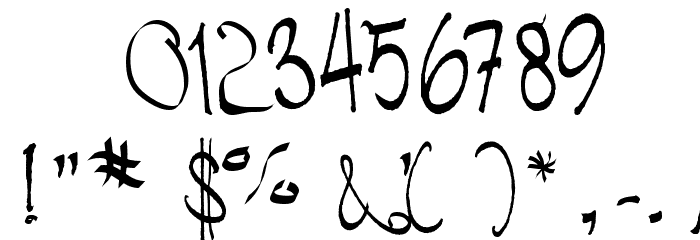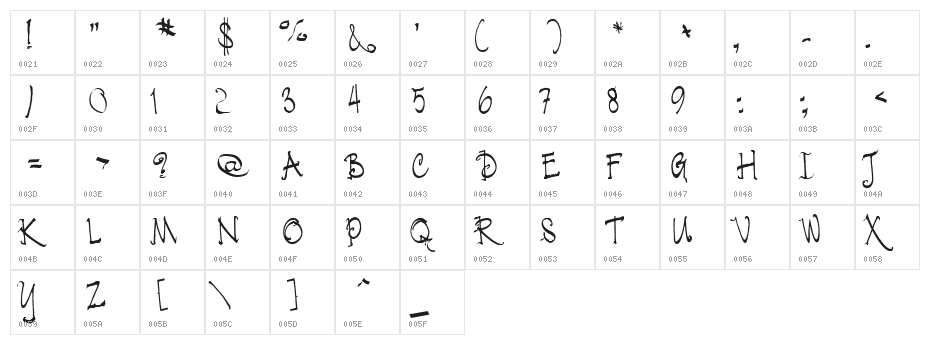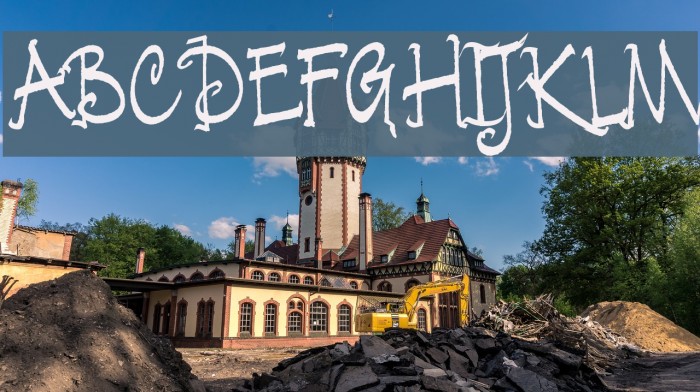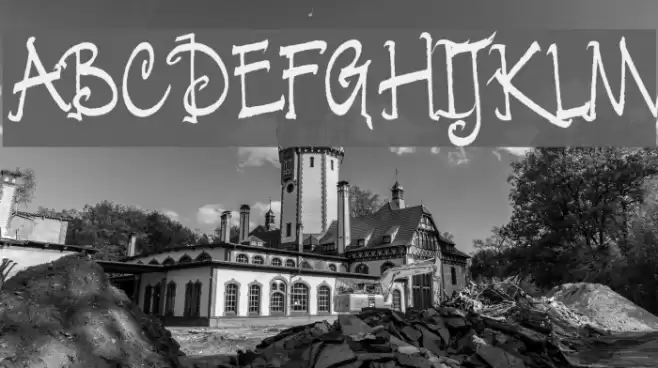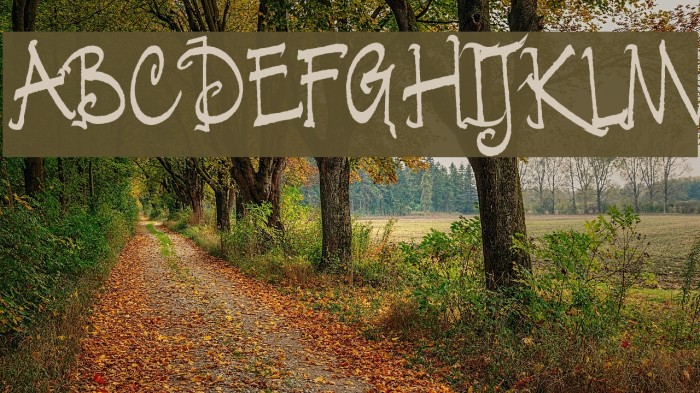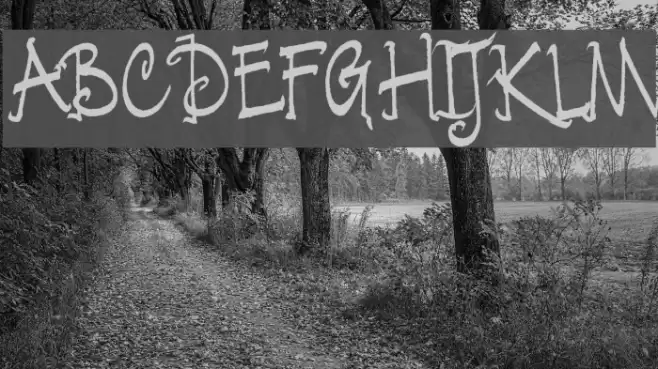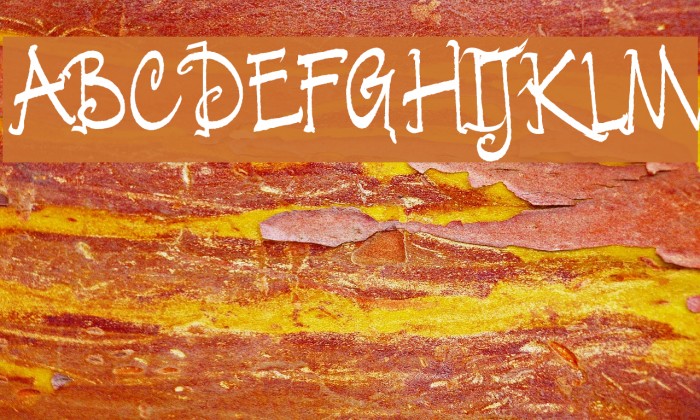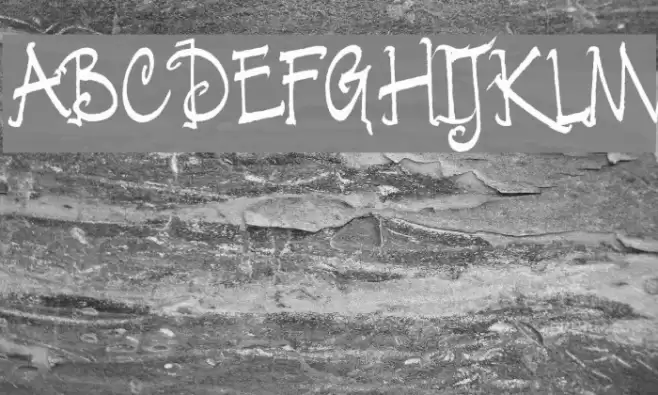
Cratch Font
This font features a dynamic and expressive handwritten style, characterized by its playful and whimsical appearance. The letters are irregular and have a slightly chaotic feel, with varying stroke thicknesses that add to its energetic vibe. The uppercase letters are bold and prominent, while the lowercase letters maintain a consistent flow, creating a sense of movement. Numbers and special characters follow the same lively design, making this font suitable for creative and informal projects. The overall look is artistic and free-spirited, perfect for capturing attention and conveying a sense of fun.
| Proposed Projects | Ideal for greeting cards, children's book covers, playful branding, and creative posters. |